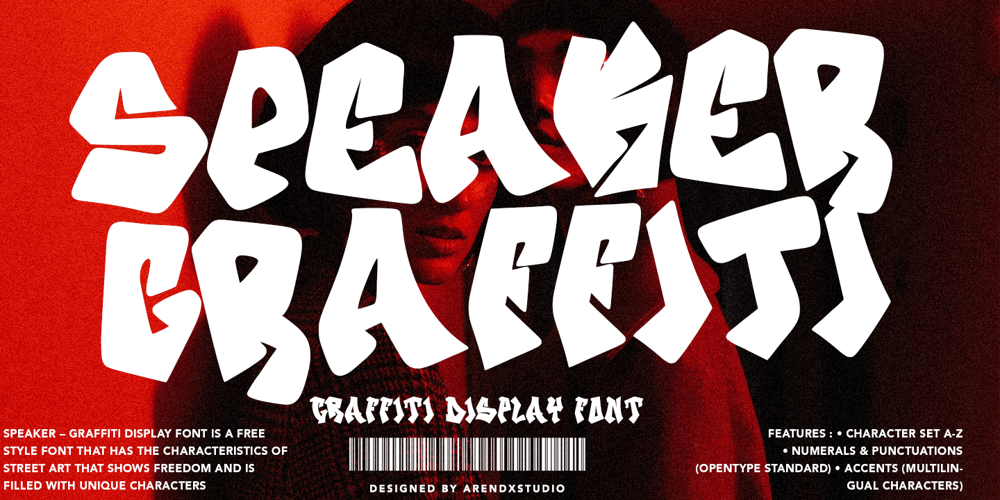
Speaker
Speaker font
Speaker Font Family was designed by Asep Rendi and published by Arendxstudio. Speaker contains 1 styles and family package options. Speaker – Graffiti font is a type of font typically used in street art and graffiti designs. It is a bold and expressive font, which usually features stylized and distorted letters, drips, and splatters. Some characteristics of graffiti fontsFeatures : • Character Set A-Z • Numerals & Punctuations (OpenType Standard) • Accents (Multilingual characters)